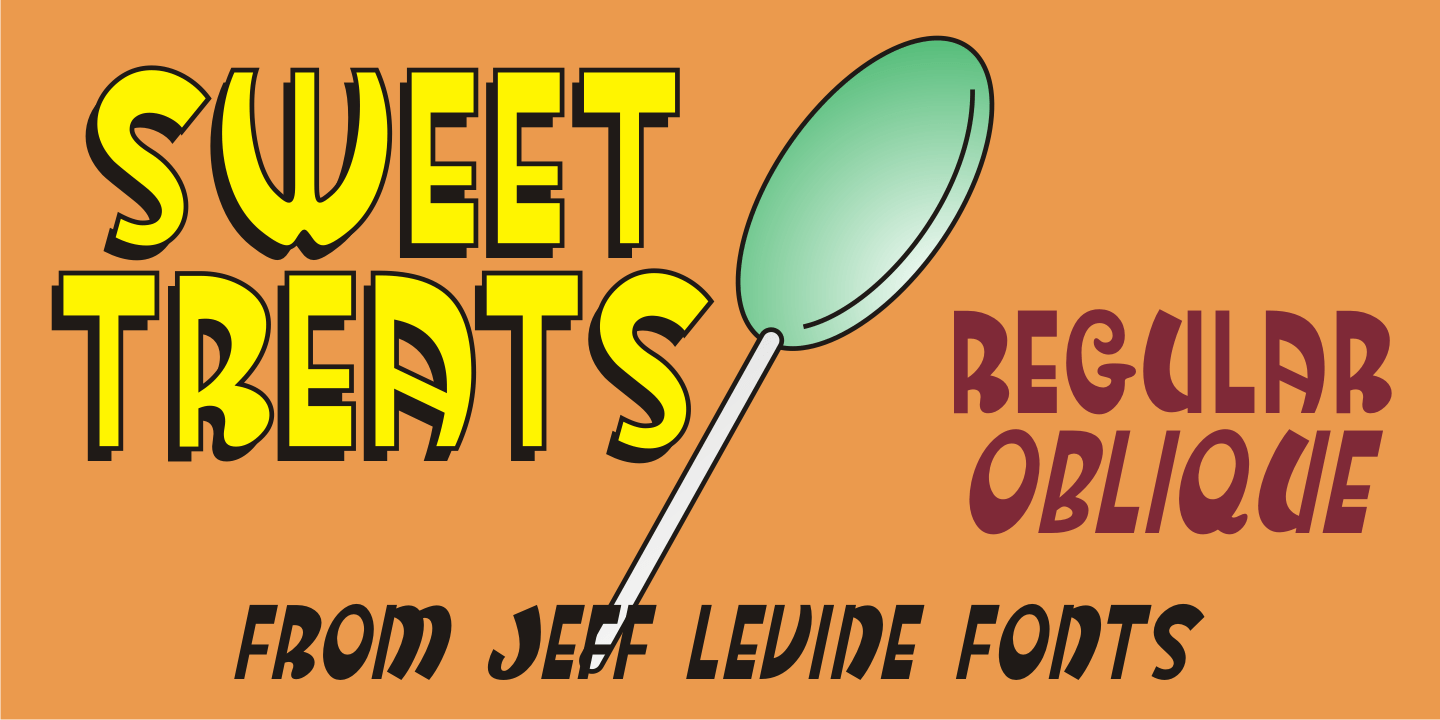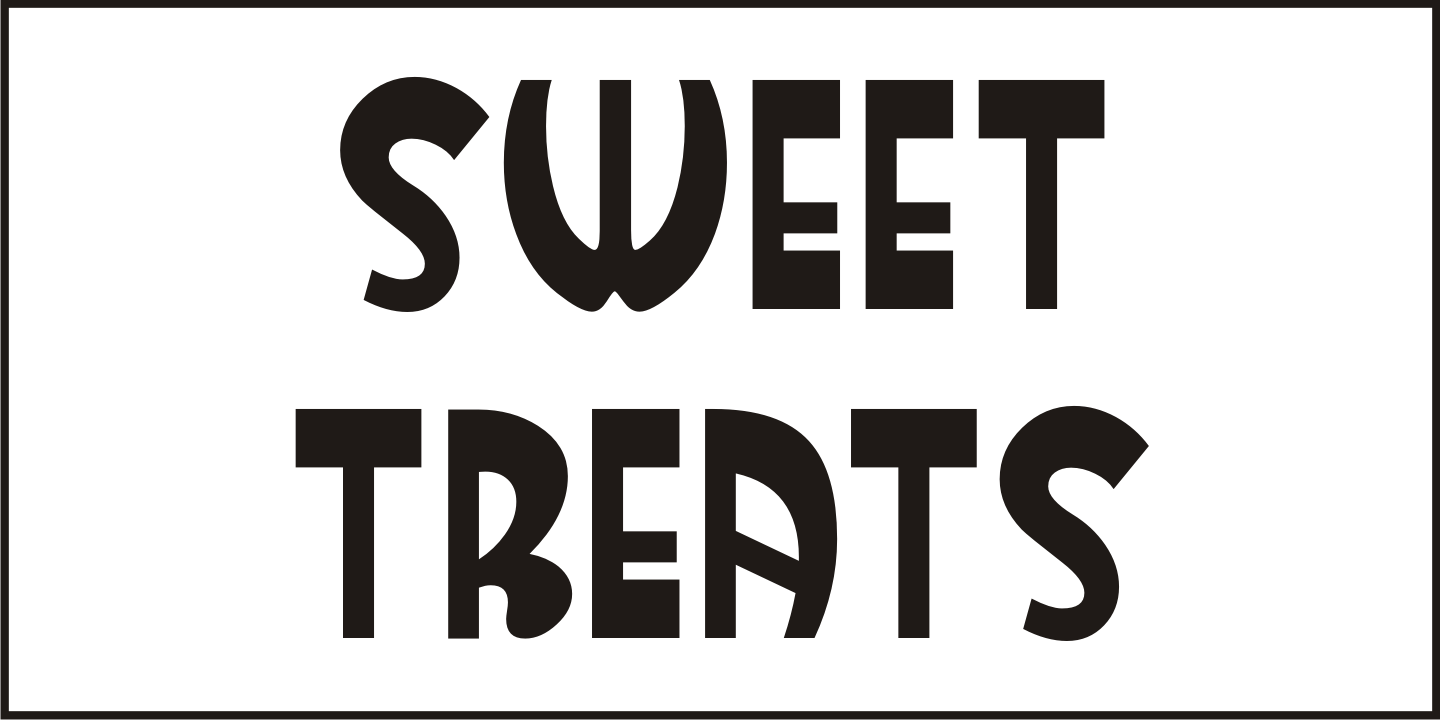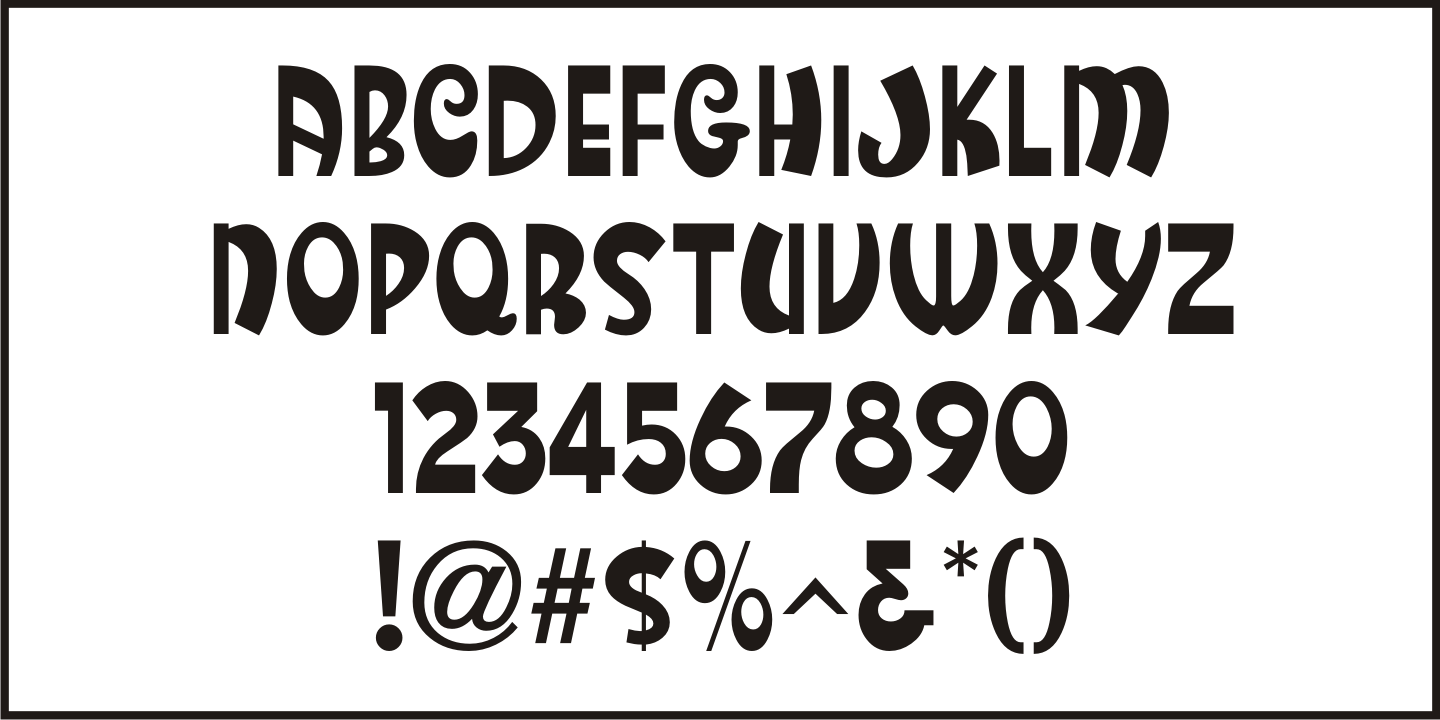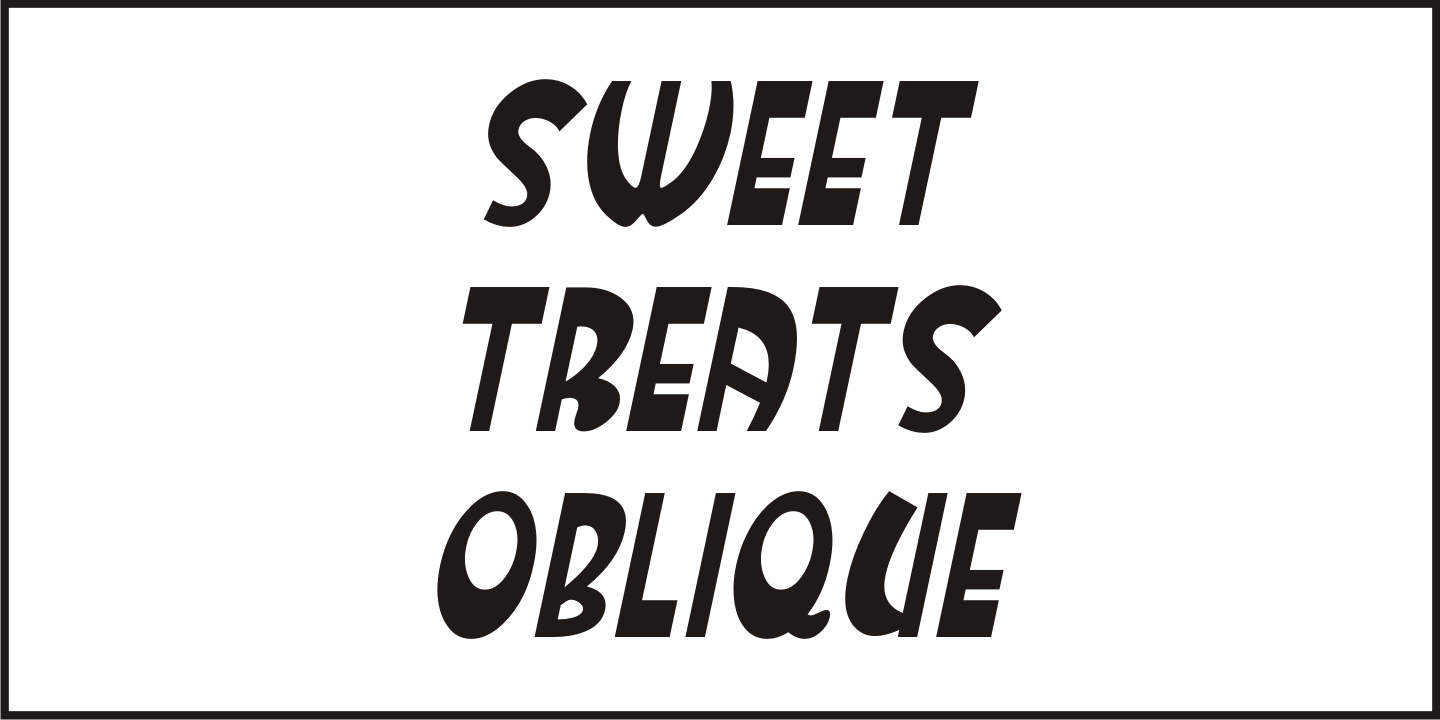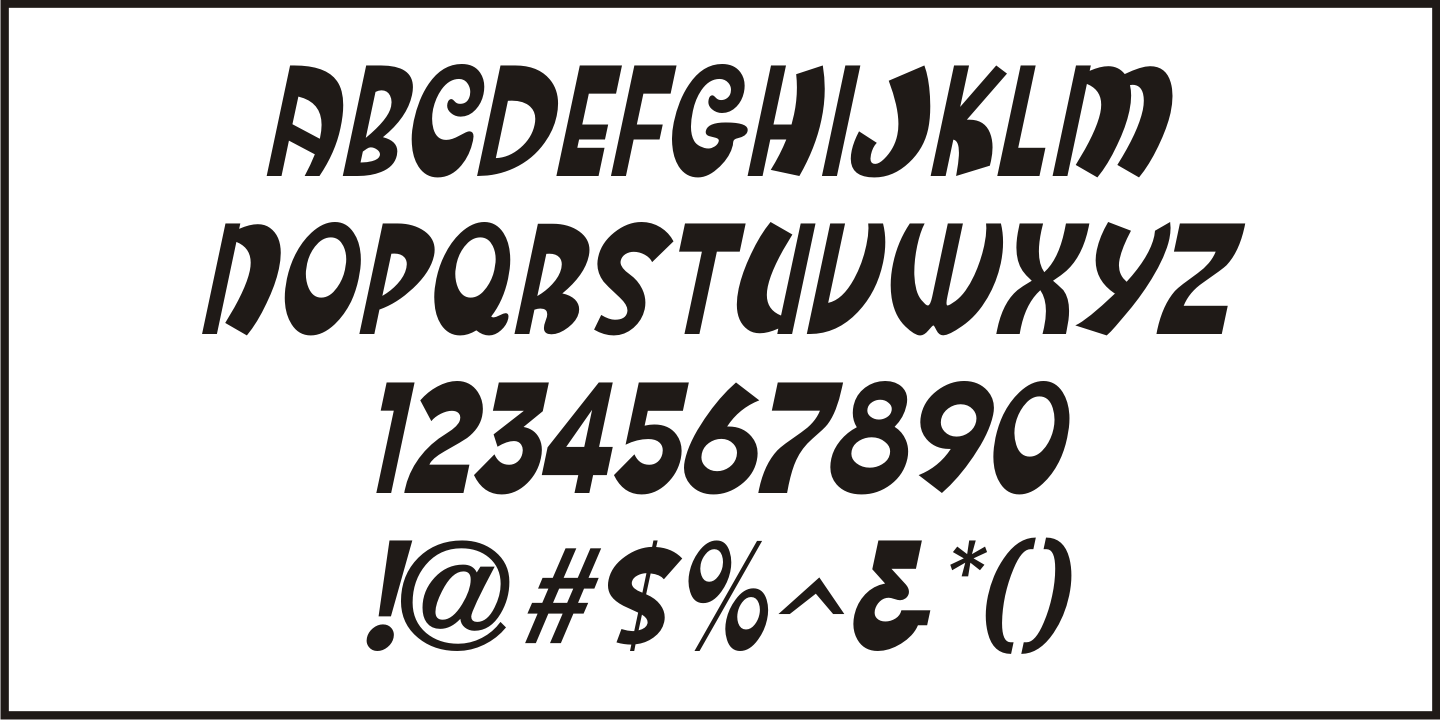
Sweet Treats
A piece of British sheet music for 'You're Sweeter than I Thought You Were' [from the 1935 film 'Jack of All Trades' starring Jack Hulbert] provided inspiration for a digital typeface based on the credits for Hulbert and the film that rather than the song's title.
What's interesting is the lettering style was influenced by Art Nouveau at a time when Art Deco was gaining in popularity.
The result is Sweet Treats JNL, which is available in both regular and oblique versions.
Sweet Treats by Jeff Levine Fonts